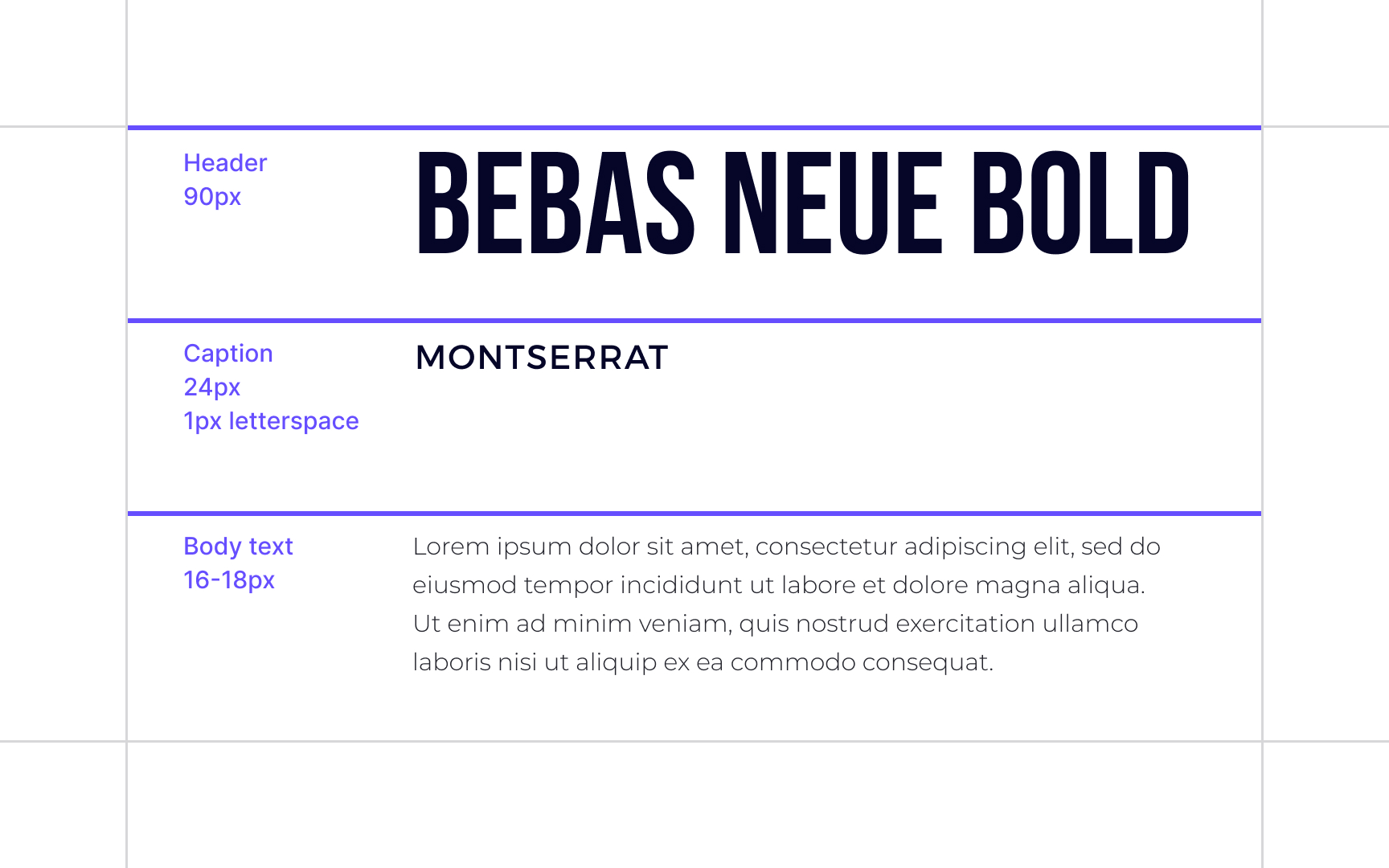
Consider your visual hierarchy
Visual hierarchy refers to the arrangement of elements, including text, to help users navigate a page. In other words, it helps you tell users where to go to find the relevant information using methods of size, color, contrast, alignment, negative space, style, etc.
Knowing the hierarchy within a page, you can decide how many typefaces you need, for example, one typeface for headlines and subheads and another for body copy, captions, button labels, etc.
Users tend to see large-sized letters in a different typeface and weight and assume it's a new section or a vital piece of information. So variations of typefaces, weights, sizes, and spacing between text elements can help designers set zones of importance (aka anchors), to increase the scannability of a page.